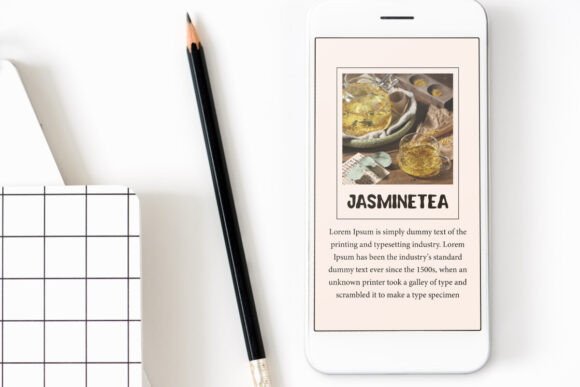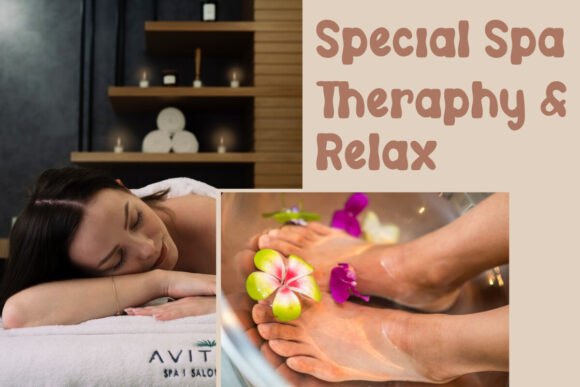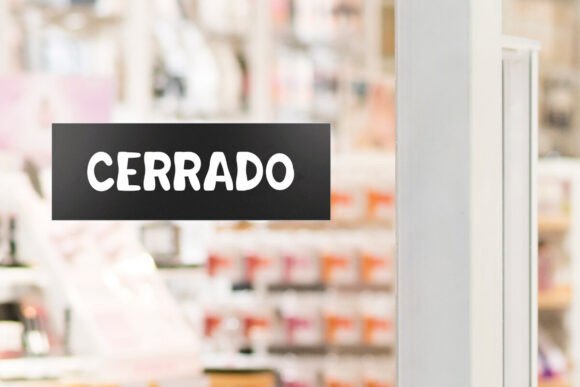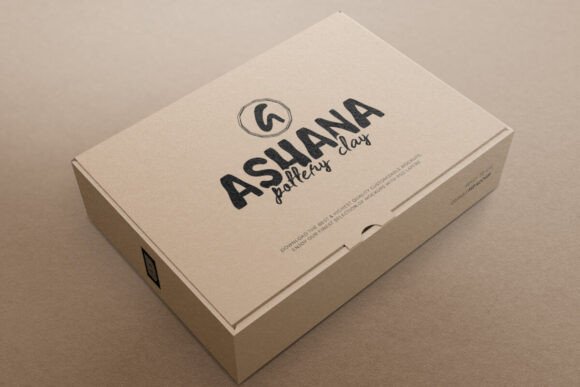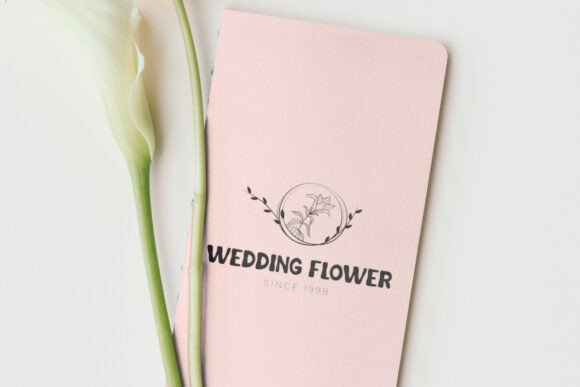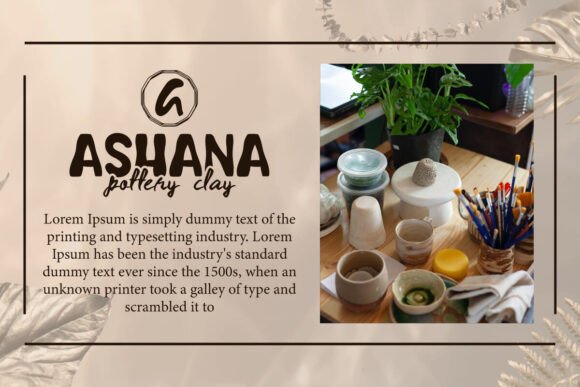
Introduction to Mergato Font
Mergato Font is an abstract, playful, yet modern display typeface.
The letterforms in this font feature wavy shapes reminiscent of clay in the molding process It is perfect for a wide variety of businesses, including accessories, beauty products, cafรฉs, entertainment, fashion, childrenโs products, photography, printing, publishing, travel, writing, and many more.